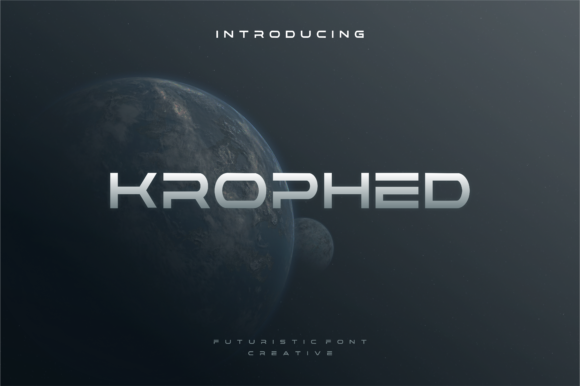
Krophed Font
Prepare to be captivated by Krophed Font, the epitome of modernism, elegance, and futurism in the realm of display fonts. This extraordinary creation by garismantra is not merely a collection of letters; it's an artistic masterpiece designed to elevate your designs to new heights of sophistication.
With Krophed Font, the possibilities are limitless. Imagine your web designs adorned with its sleek and stylish characters, captivating your audience with their distinct charm. Picture your business cards exuding professionalism and uniqueness, leaving a lasting impression on potential clients. Unleash your creativity and let Krophed Font transform your projects into visually stunning masterpieces.
Step into a world where fonts are more than just characters; they're a form of expression, a way to communicate your ideas with flair and impact. Krophed Font empowers you to convey your messages with a touch of elegance and a hint of intrigue. Its carefully crafted lines and curves dance across the screen, inviting your audience to immerse themselves in your content.
Whether you're a seasoned designer or just starting your creative journey, Krophed Font is the perfect companion for your design endeavors. Its versatility knows no bounds, adapting seamlessly to a wide range of projects. From web designs and logos to posters and social media graphics, Krophed Font effortlessly elevates every design element, adding a touch of sophistication and visual appeal.
Don't settle for ordinary fonts that blend into the background. Embrace the power of Krophed Font and watch your designs come alive with a new level of visual intrigue. Its unique and captivating style demands attention, making your projects stand out from the crowd. Prepare to be amazed by the transformative power of Krophed Font, the ultimate choice for discerning designers seeking to make a lasting impact.